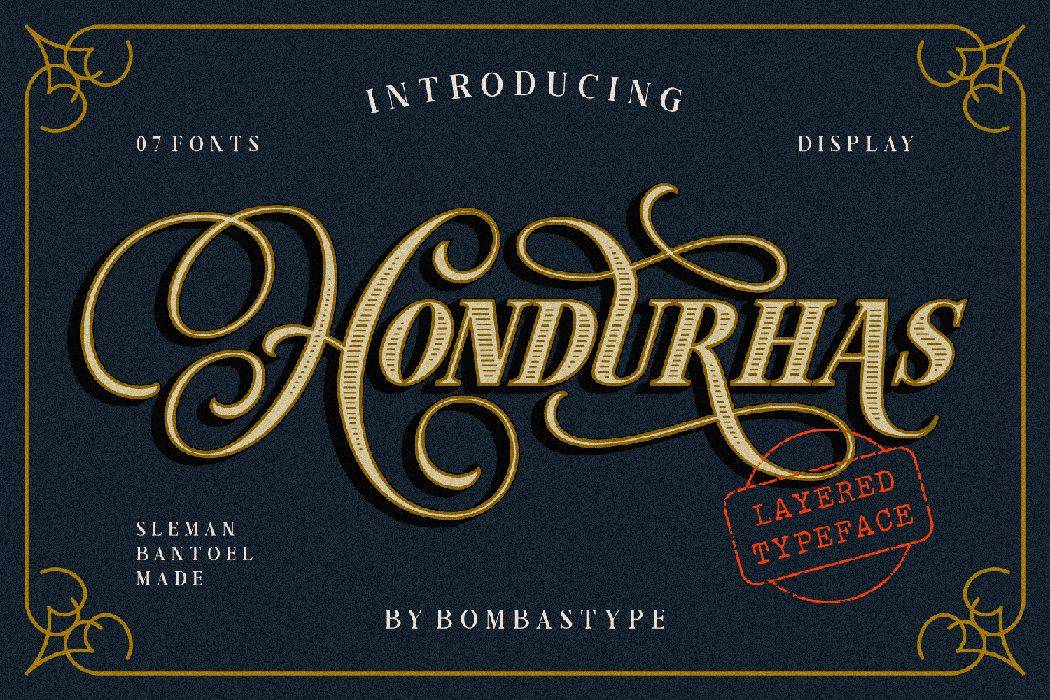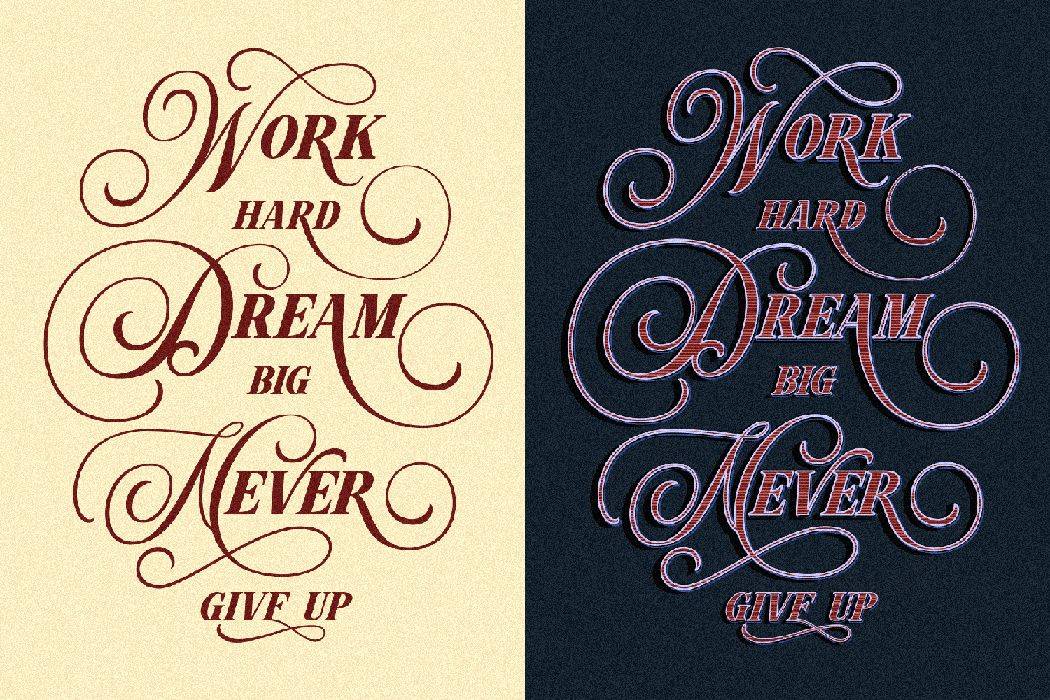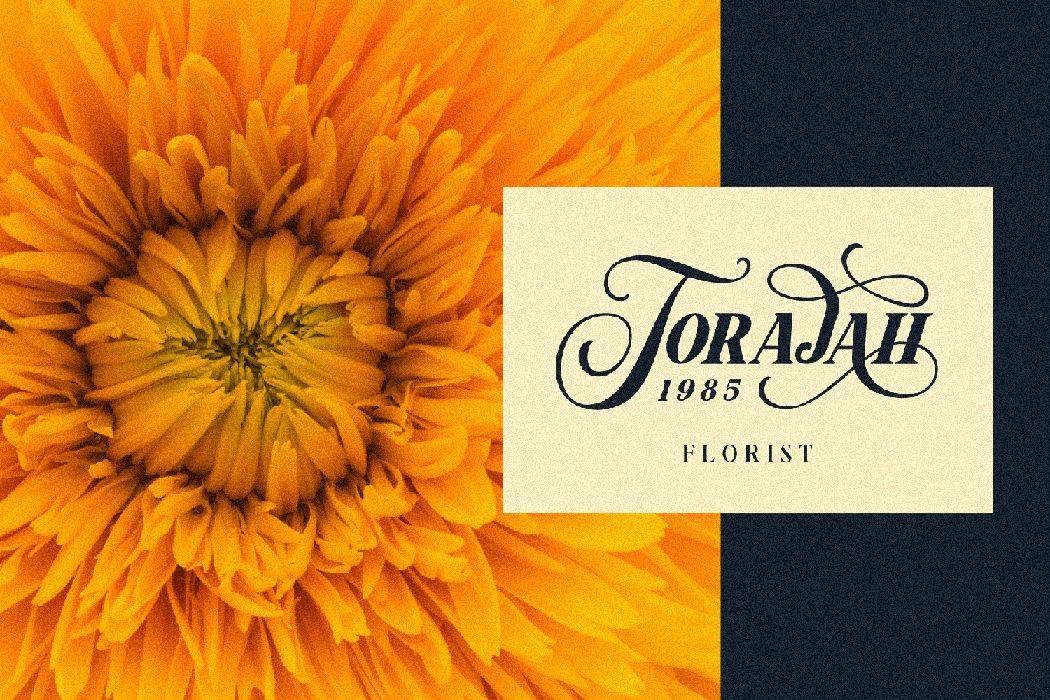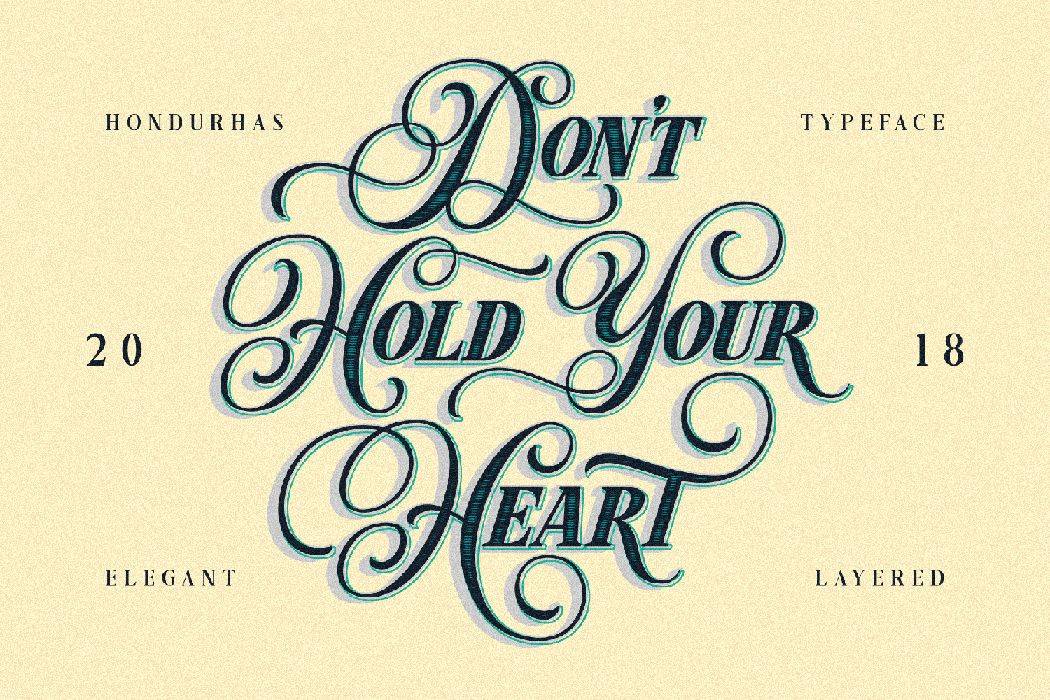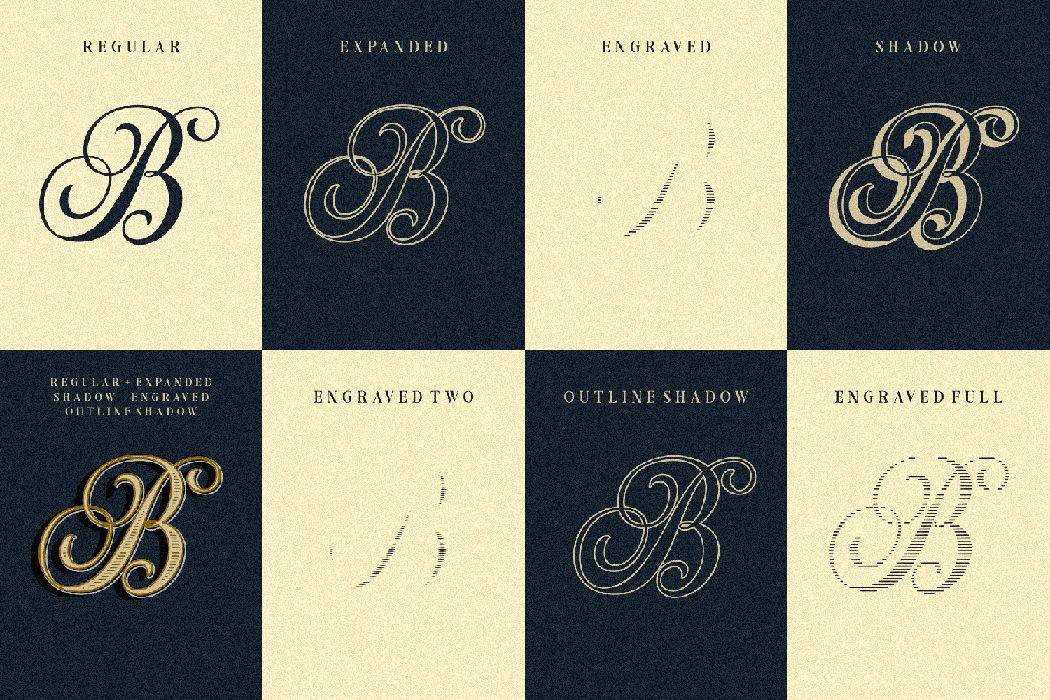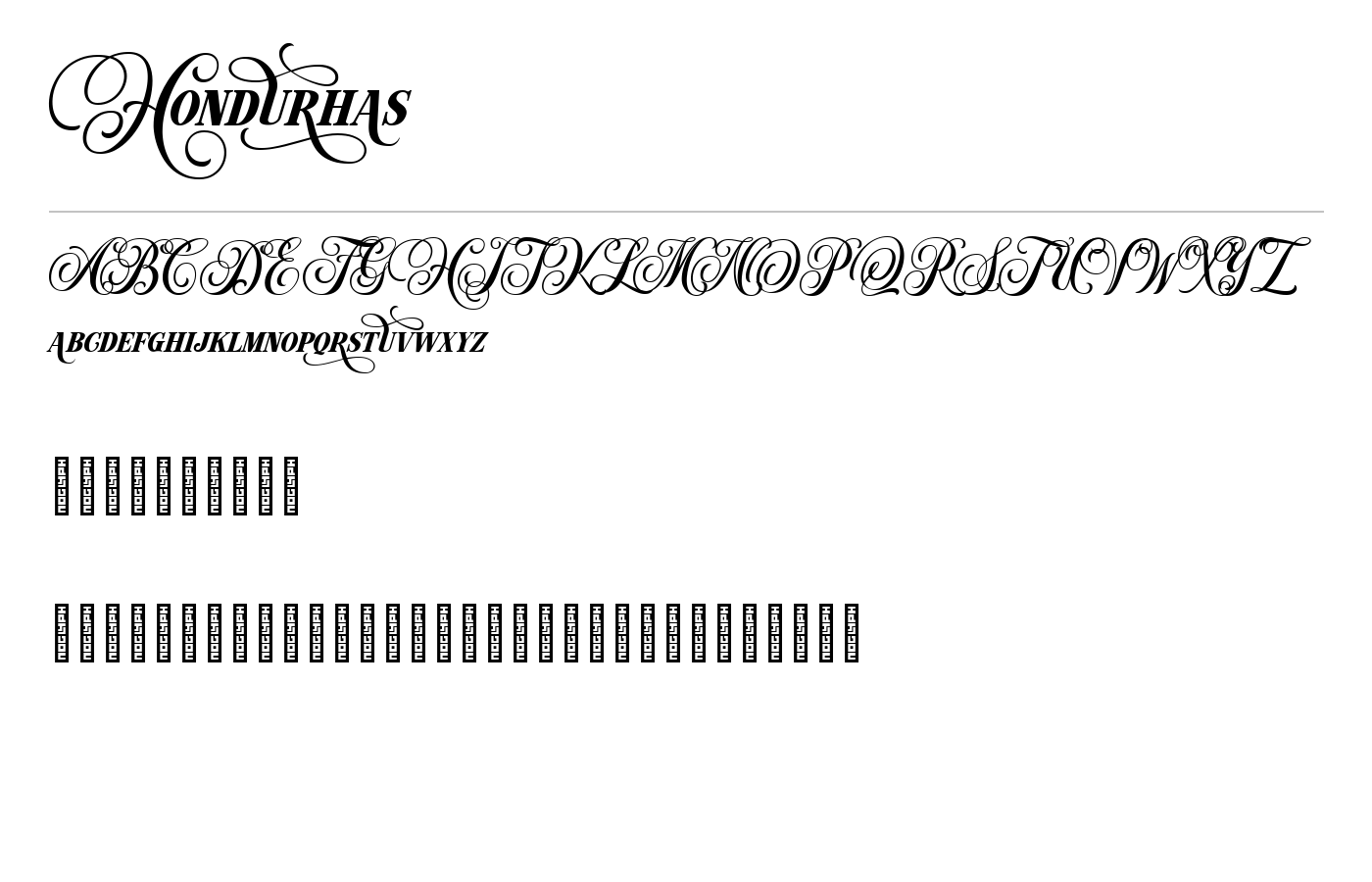
Hondurhas is an elegant serif font with a strong vintage flair, characterized by its high contrast between thick and thin strokes and elaborate, flowing swashes on the uppercase letters. This decorative, bold typeface features a condensed width and intricate detailing that makes it ideal for upscale branding, logos, and sophisticated editorial projects where a dramatic, classic presence is desired. Its refined, ornamental style communicates luxury and tradition, making it perfect for use in fashion, invitations, and premium product packaging.
Hondurhas Font
About Hondurhas Font